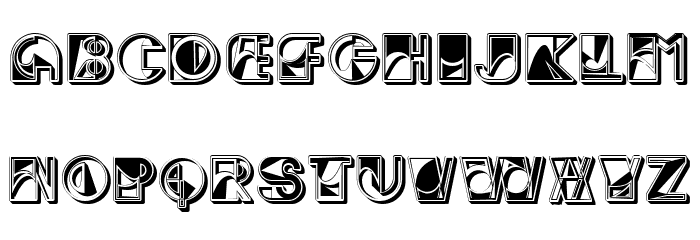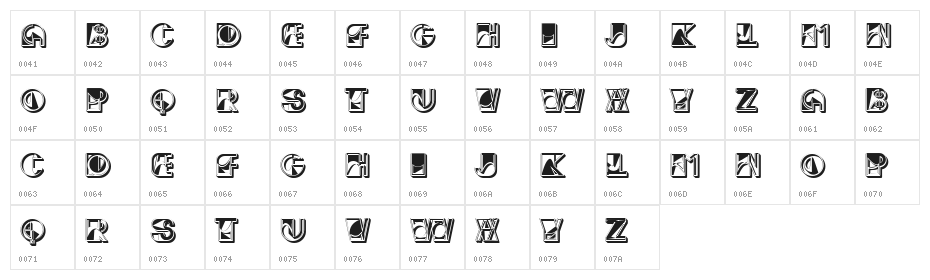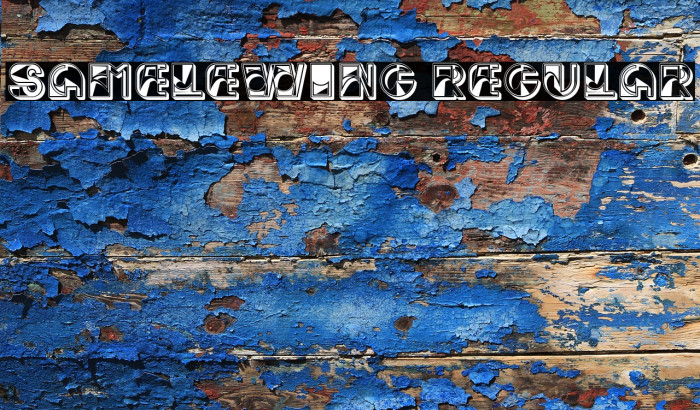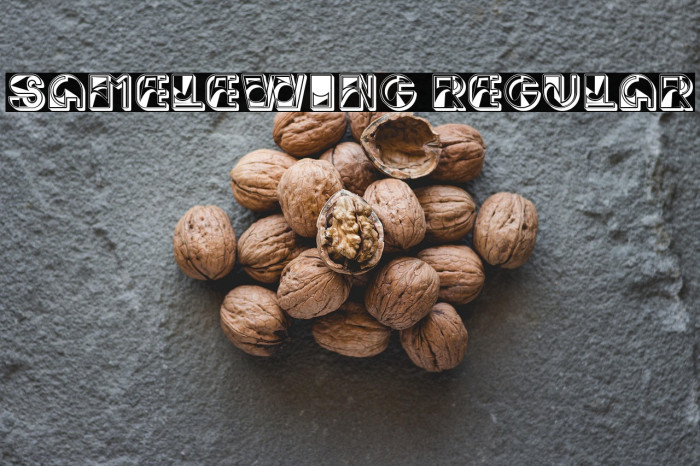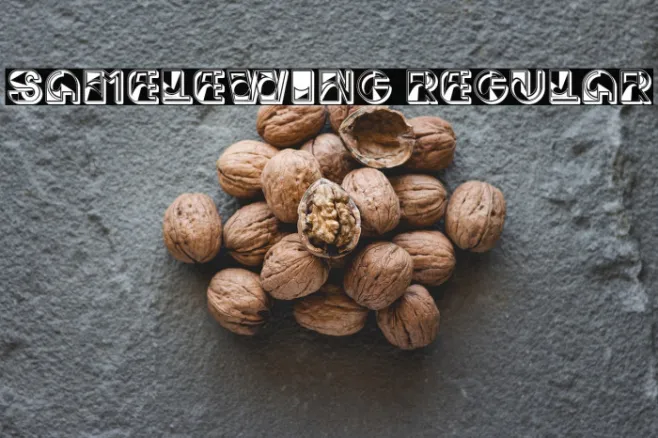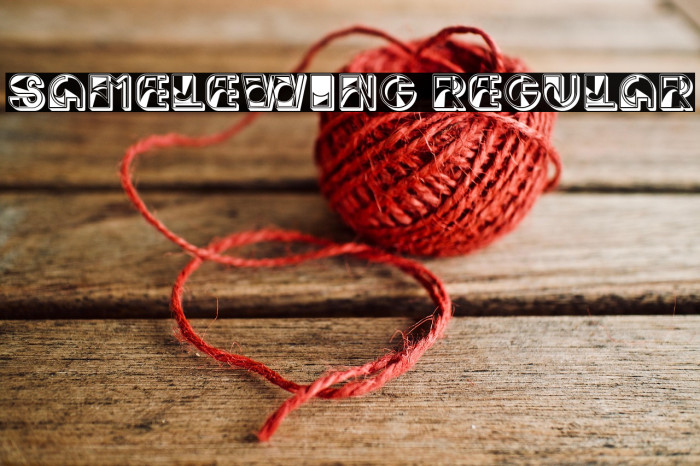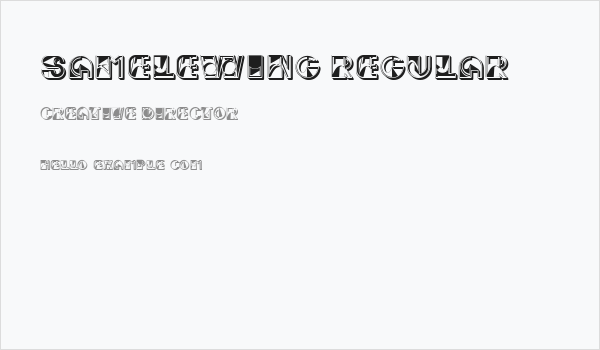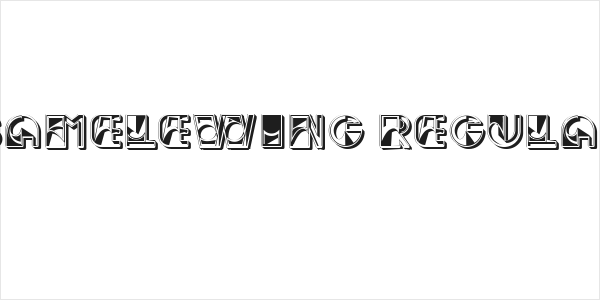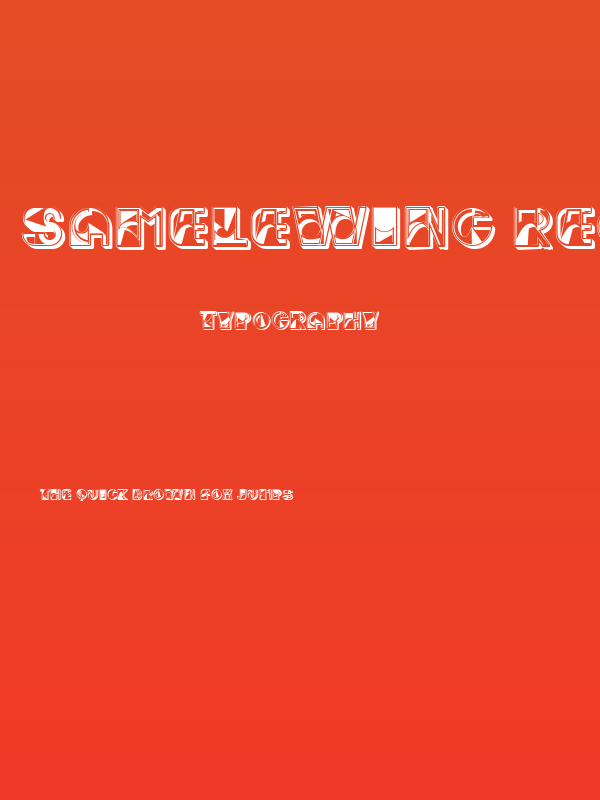
Samelewing Regular Font
Samelewing Regular Description
This font features a bold and striking design with a unique geometric pattern within each letter. The characters are outlined with a thick black border, creating a strong visual impact. The interior of each letter is filled with intricate shapes and lines, giving it a modern and artistic feel. The uppercase letters are consistent in height and width, maintaining a uniform appearance across the alphabet. This font is highly decorative and is best suited for creative and eye-catching designs.
| Proposed Projects | Ideal for posters, album covers, branding, and any project requiring a bold, artistic touch. |